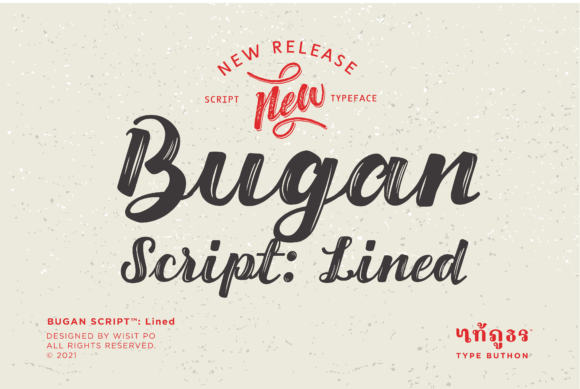
Witness the allure of Bugan Script Font, a captivating creation by TYPE BUTHON, and immerse yourself in the world of enchanting scripts. This font family gracefully embodies strength, confidence, and dynamism, leaving an indelible mark on your designs. Unleash your creativity and let Bugan Script's nostalgic charm transport you to a bygone era.
Bugan Script's flowing hand-brushed strokes evoke a sense of authenticity and artistry, adding a touch of timeless elegance to your projects. Each letter dances across the page with a fluidity and grace that captures the eye and captivates the heart. Its distinctive style evokes a sense of nostalgia, reminiscent of vintage posters and hand-lettered signs.
With Bugan Script, your words take on a life of their own, becoming an integral part of your designs. Its bold and confident presence commands attention, making it an ideal choice for headlines, logos, posters, and other attention-grabbing applications. Yet, beneath its confident exterior lies a subtle playfulness, inviting you to explore the endless possibilities of creative expression.
Whether you're a seasoned designer or just starting, Bugan Script is the perfect font for adding a touch of charm and sophistication to your work. Its versatility extends from traditional print media to the vibrant world of digital design, making it a must-have for any creative toolbox.
Don't miss the opportunity to elevate your designs with the timeless beauty of Bugan Script Font. Its captivating strokes and undeniable charm will leave a lasting impression, ensuring that your creations stand out from the crowd. Embrace the allure of this remarkable font today and embark on a journey of creativity that knows no bounds.